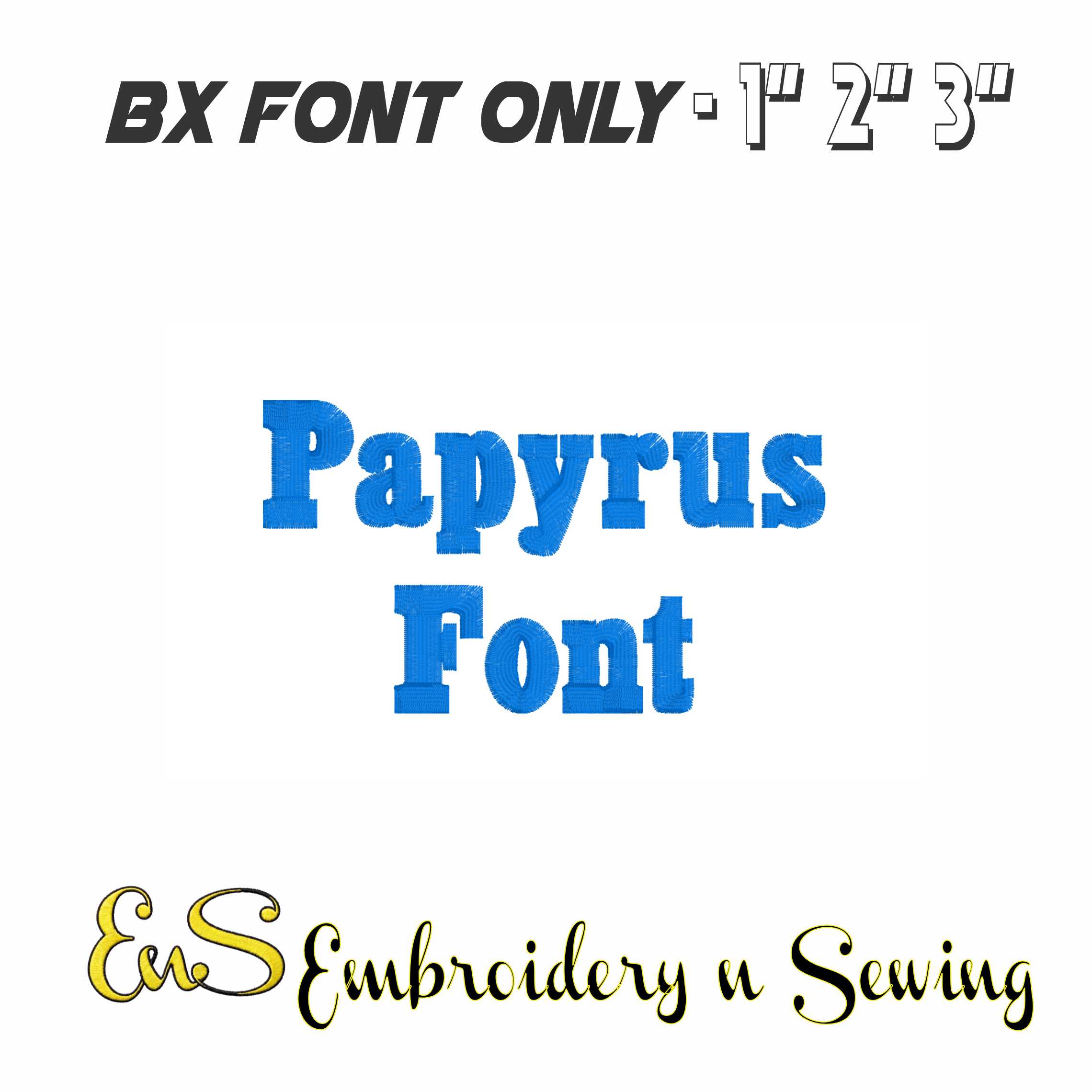
Papyrus Font
A bold blue decorative serif alphabet style that gives names, labels and monograms a carved, old-world look.
Add aged character to your lettering with Papyrus Font, a decorative serif style shown here in stacked blue sample text with strong, bold letterforms. It suits stitchers who want wording that feels a little historic and ornamental rather than plain, especially for names, short quotes and standout initials. The compact size range makes it useful when you want the font to read clearly without taking over the whole project.
I’d use this style on book sleeves, linen pouches, cotton napkins, notebook covers or the pocket area of a shirt where the lettering itself is meant to be the feature. Because the letters are bold and decorative, it works best on fairly stable fabrics that let those serif details stay crisp. If you want text that looks more distinctive than a basic block font, this one brings shape and presence straight away.